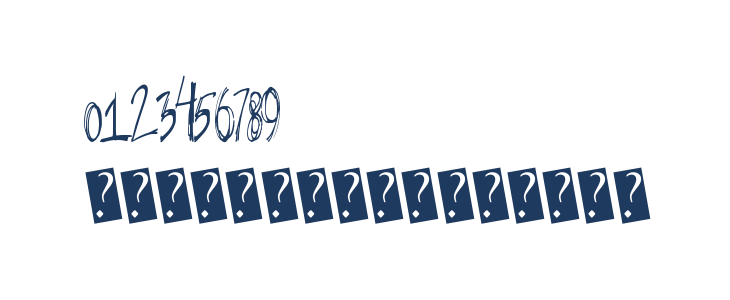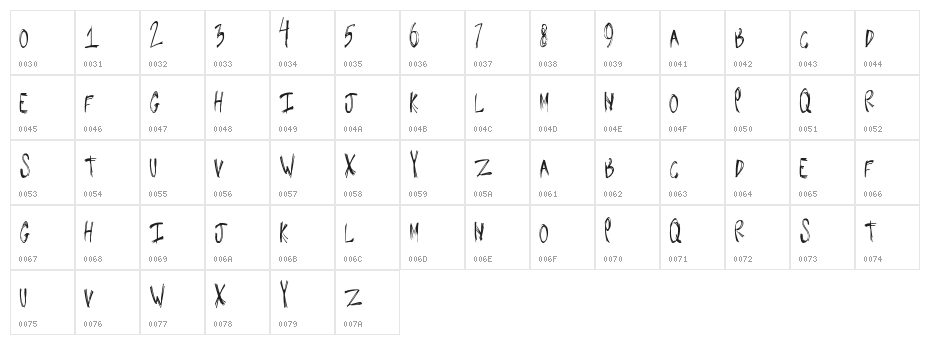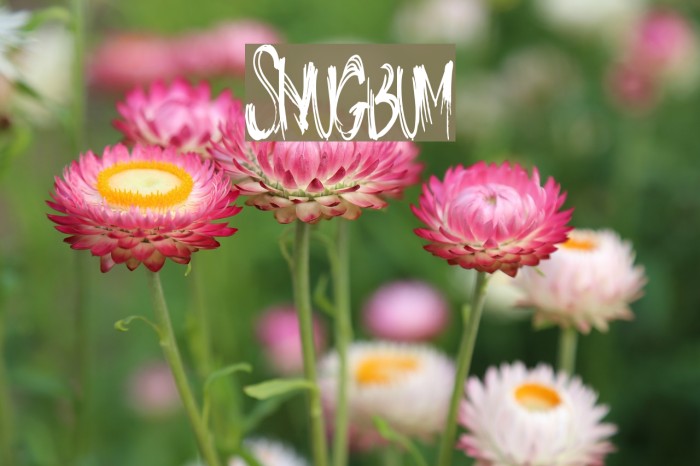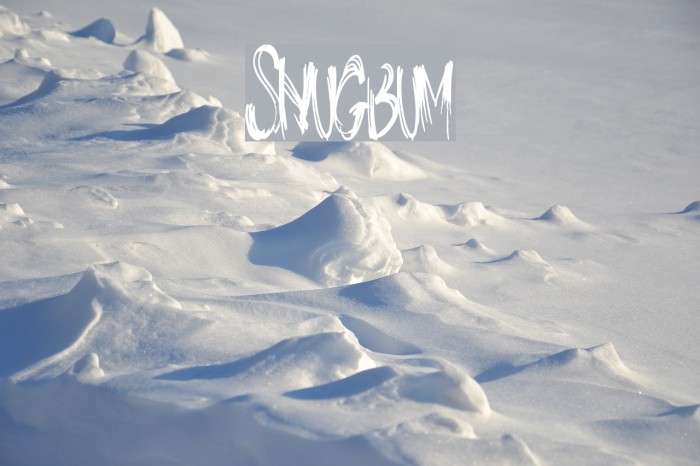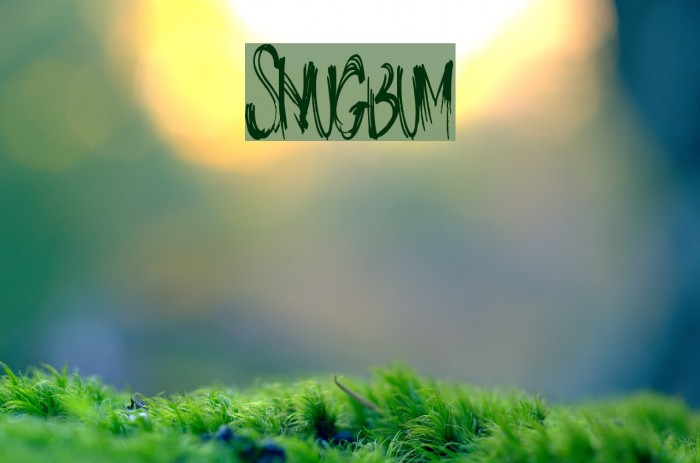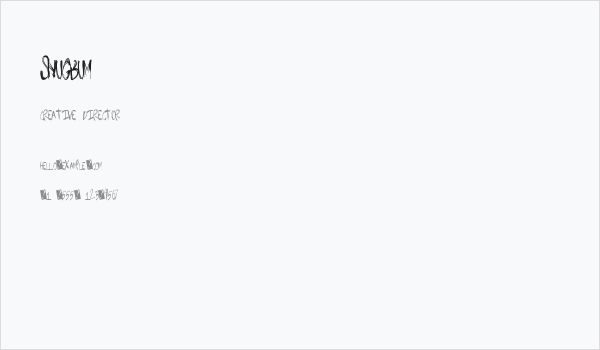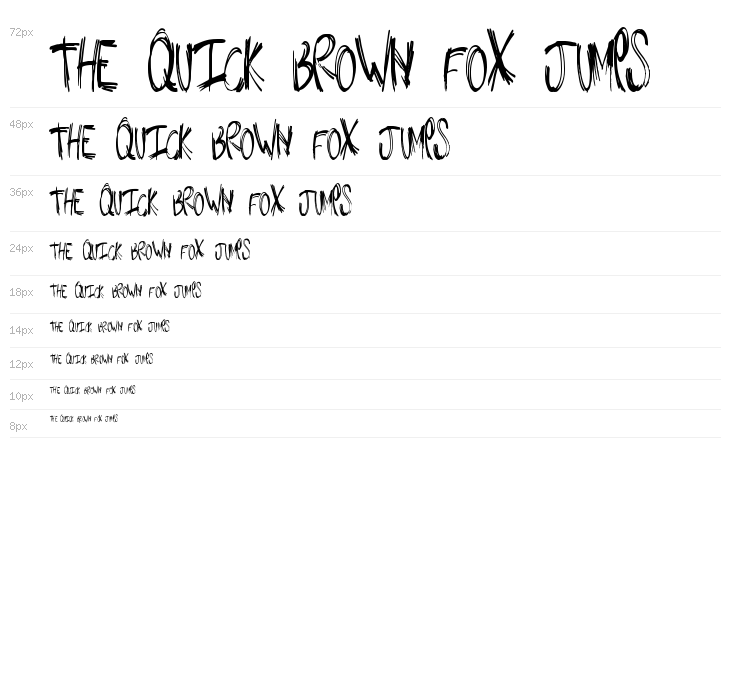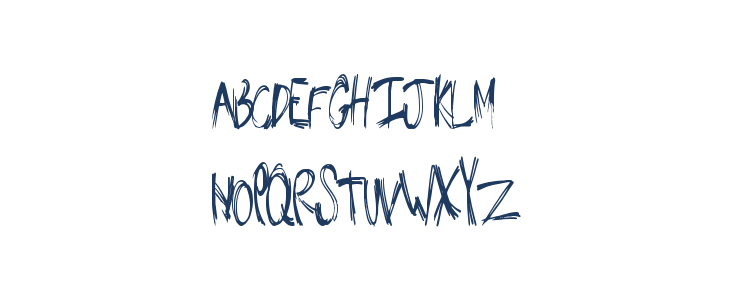
SnugBum Font
SnugBum Description
This font features a bold, expressive style with a hand-drawn appearance. The strokes are uneven and jagged, giving it a dynamic and energetic feel. The uppercase and lowercase letters maintain a consistent height, while the numbers and special characters follow the same rugged aesthetic. The overall look is reminiscent of graffiti or street art, making it ideal for projects that require a bold and unconventional statement. The font's unique character is emphasized by its irregular line thickness and playful, artistic flair.
| Overall Style | Modern, Artistic |
| Proposed Projects | Ideal for album covers, posters, street art designs, and edgy branding projects. |